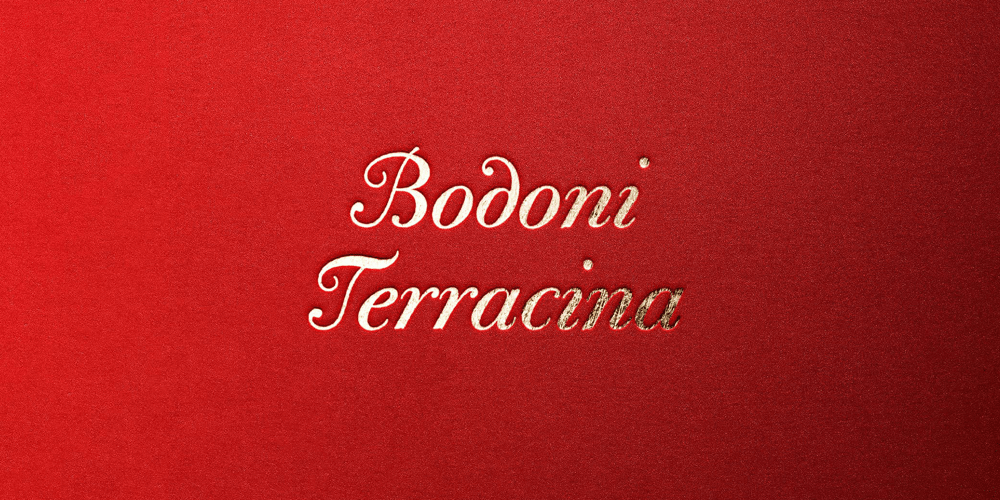
CAL Bodoni Terracina
CAL Bodoni Terracina font
CAL Bodoni Terracina Font Family was designed by Giambattista Bodoni, Dave Lawrence, CAL Origins Design Team and published by California Type Foundry. CAL Bodoni Terracina contains 6 styles and family package options. Bodoni Terracina is a legible, fun-formal script face, with lots of curls.Sometimes script faces are hard to read. Sometimes being formal means that there’s no personality and there’s no fun.Enter Terracina: one of the masterpieces of font design. Some of the most personable italics ever carved.Includes powerful new features for:• Dates• Pricings• AddressesNot is only Terracina formal but fun, it’s also fun to use!In a program like Adobe Indesign or Illustrator, just highlight a word and see lots of fun options.Bodoni himself etched these symbols, and his fun-loving personality shines through.As a semi-script, it can go together with many script fonts, but it is more readable. When you need something equal parts elegant and whimsical, Terracina strikes a perfect balance to let the fun shine through, such as for holiday designs or fairytales.Terracina is a subheads font, but Bodoni also used it for paragraphs. So Terracina works well doing subhead paragraphs, especially when contrasting with the mood of the first font. And because of the swash variety, it works well for setting German and other European languages.CAL Bodoni Terracina is a member of our Origins Series. Origin Fonts are designed to be true to the original designer’s intentions and fonts. Our Bodoni origin fonts ARE Bodoni fonts, not imitations or interpretations. They were drawn by Bodoni, our team just expanded it for modern use. For Terracina, Bodoni’s original weight is the “Quasi-Lite” option, all other weights have been meticulously matched by the CAL Origins Team.